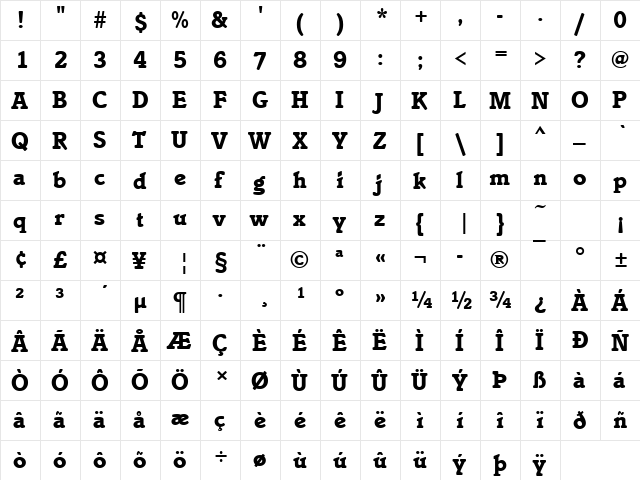
URWIschtarT Bold
Design Context for URWIschtarT Typeface
URWIschtarT is a composed and adaptable typeface that performs quietly and consistently across a wide range of design contexts. Its bold stroke weight gives it real presence on the page.
Pro Tip: Use URWIschtarT in both headline and body roles to test its range before committing to a single application.